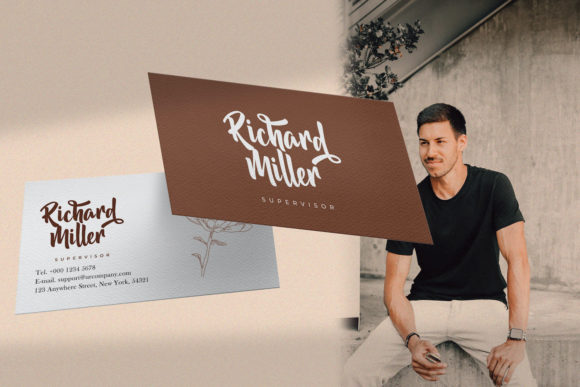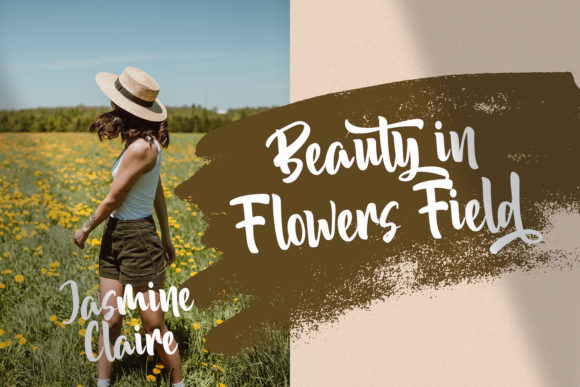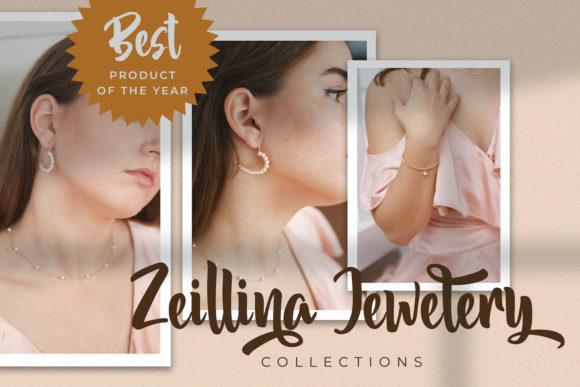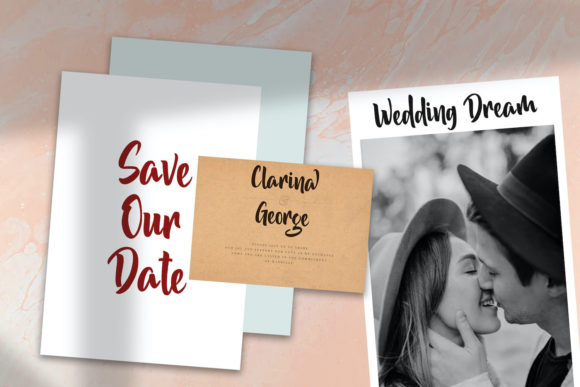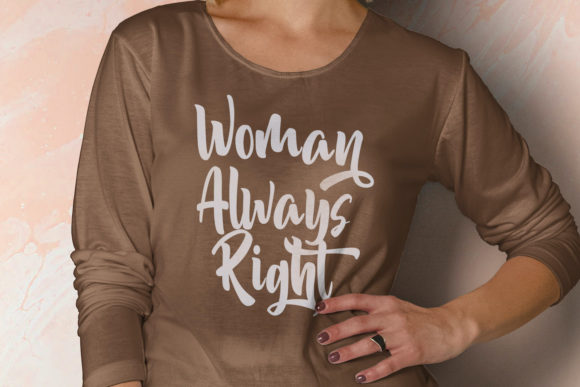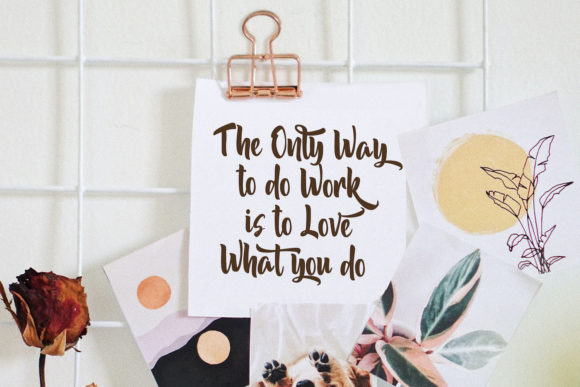
Introducing Akidan Hatory Font: Elevate Your Creativity with Elegance
Are you a designer, crafter, or DIY enthusiast looking for a font that can add a touch of magic to your creative projects? Look no further than Akidan Hatory, a beautifully crafted script font that combines elegance with versatility. In this article, we’ll dive into the world of Akidan Hatory, exploring its features, benefits, and uses, and show you how this font can transform your ideas into stunning works of art.
A Font that Casts a Spell of Elegance
Akidan Hatory is more than just a font – it’s a creative tool that can elevate your designs, crafts, and DIY projects to new heights. With its carefully crafted script letters, this font exudes a sense of sophistication and refinement, making it perfect for a wide range of applications, from Instagram posts to calligraphy scripts, and from branding to packaging design.
Key Features of Akidan Hatory Font
- PUA Encoding: Akidan Hatory is PUA (Private Use Area) encoded, which means you can access all the glyphs and swashes with ease. This feature allows you to unlock the full potential of the font, giving you the creative freedom to experiment with different styles and effects.
- Magical Script Font: Akidan Hatory is a script font that is both elegant and whimsical, making it perfect for a wide range of creative projects, from formal invitations to social media graphics.
- Multipurpose: Whether you’re a designer, crafter, or DIY enthusiast, Akidan Hatory is a versatile font that can be used for various projects, including logos, branding, packaging, and more.
Uses for Akidan Hatory Font
Akidan Hatory is an incredibly versatile font that can be used for a wide range of creative projects, including:
- Instagram Graphics: Add a touch of elegance to your Instagram posts and stories with Akidan Hatory. Use it to create stunning quotes, announcements, and promotional graphics that will leave your followers in awe.
- Calligraphy Scripts: Akidan Hatory is perfect for calligraphy scripts, whether you’re creating custom pieces for clients or working on DIY projects. The font’s elegant letters and swashes will add a touch of sophistication to your work.
- DIY Projects: From crafting to woodworking, Akidan Hatory can add a personal touch to your DIY projects. Use it to create custom signs, labels, and decorations that showcase your creativity.
- Branding and Packaging: Akidan Hatory is an excellent choice for branding and packaging design. Use it to create custom logos, labels, and packaging that reflect your brand’s personality and style.
Tips and Tricks for Using Akidan Hatory Font
To get the most out of Akidan Hatory, here are some tips and tricks to keep in mind:
- Experiment with Swashes: Akidan Hatory’s PUA encoding allows you to access a range of swashes and glyphs. Experiment with different combinations to create unique and eye-catching effects.
- Mix and Match: Don’t be afraid to mix and match Akidan Hatory with other fonts to create interesting and dynamic effects.
- Pay Attention to Kerning: As with any font, pay attention to kerning to ensure that your text looks professional and polished.
Akidan Hatory is a magical script font that can add a touch of elegance to any creative project. With its PUA encoding, versatile design, and range of uses, this font is perfect for designers, crafters, and DIY enthusiasts alike. Whether you’re looking to create stunning Instagram graphics, elegant calligraphy scripts, or custom branding and packaging, Akidan Hatory is the perfect tool to help you bring your ideas to life.